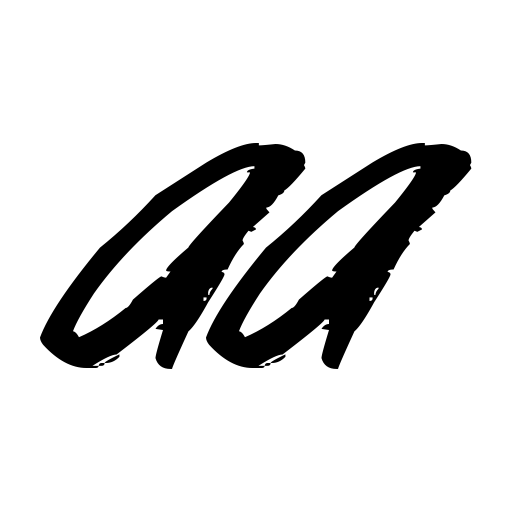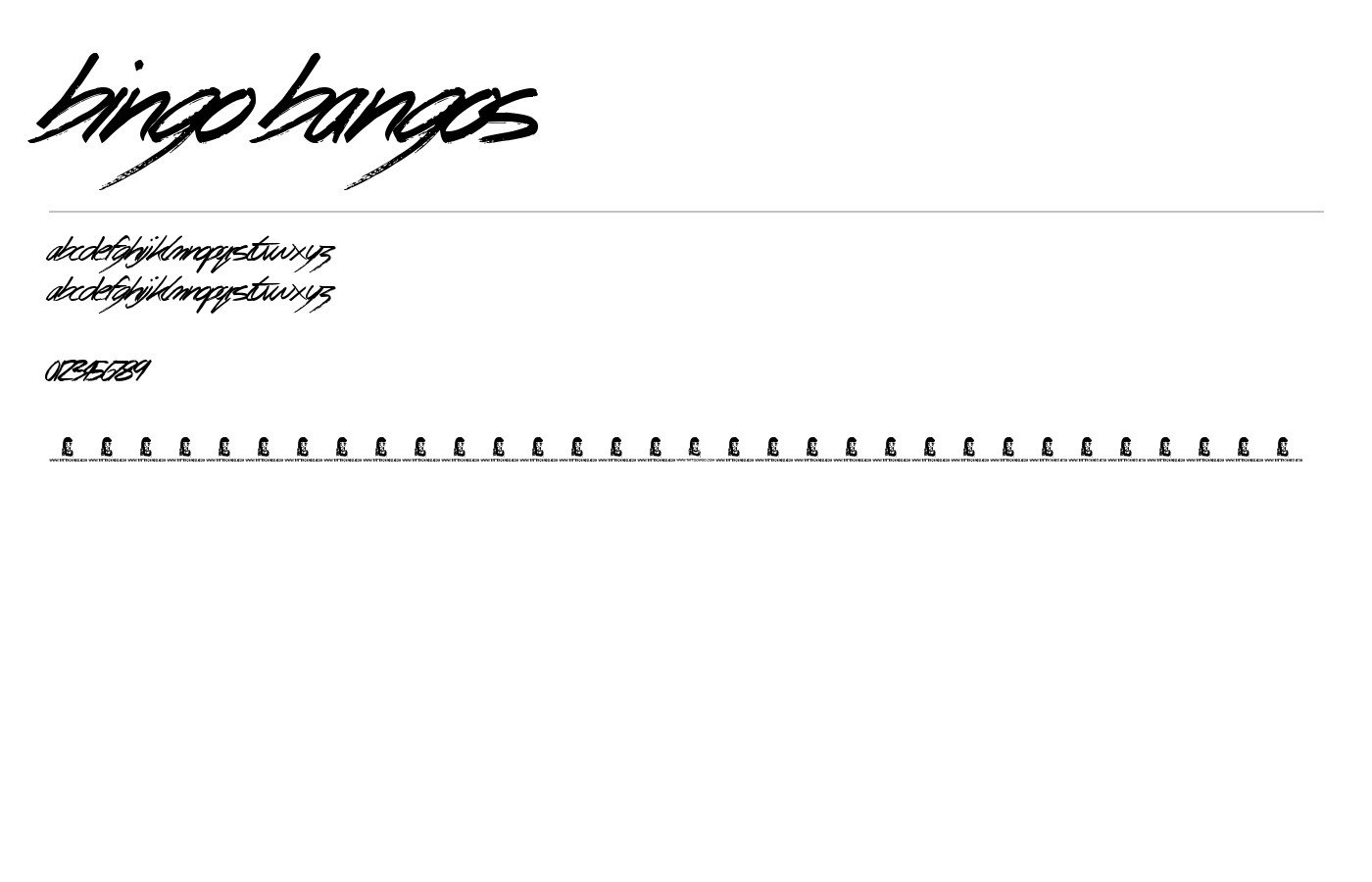
Bingo Bangos is an energetic and expressive handwritten script font with a bold, brushstroke style that conveys a sense of urgency and creativity. Its dynamic, slightly rough texture and angular letterforms make it perfect for projects that need a casual yet impactful look, such as logos, posters, or artistic branding. This font works best in display settings where its lively personality can take center stage.
Bingo Bangos Font